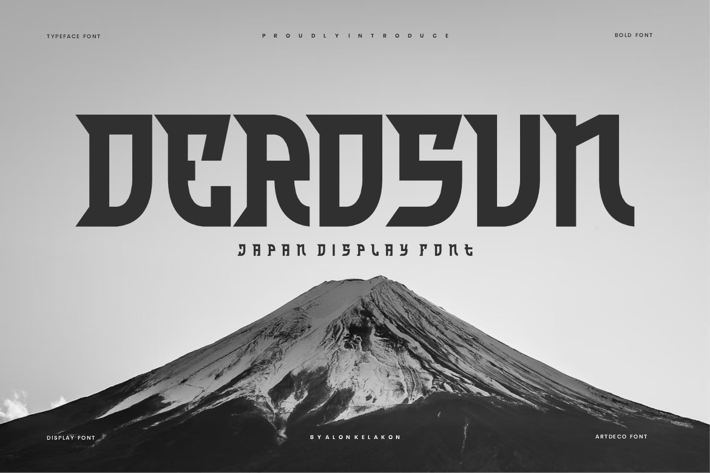
Derosun - Japan Display Font
Derosun Font is unique . Ready to use for your design like labeling, movie sceen, poster, movie title, gigs, album covers, logos, and much more.